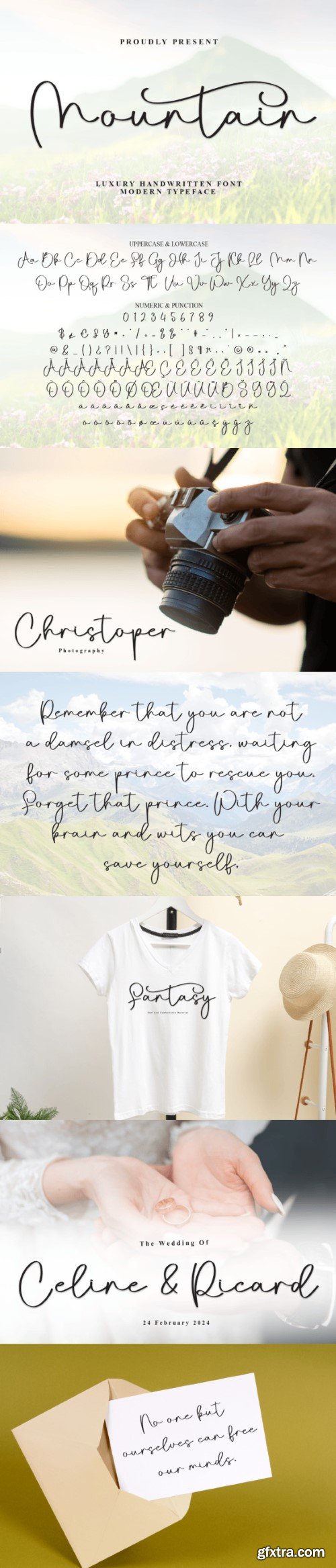
Mountain Font
Mountain is a graceful handwritten font characterized by fluid strokes and elegant curves. With its flowing rhythm and natural feel, Mountain exudes charm and sophistication. Ideal for wedding invitations, greeting cards, and branding, this font adds a touch of warmth and personality to any project with its stylish appeal.